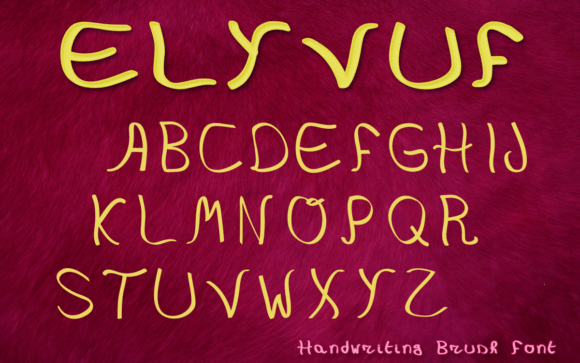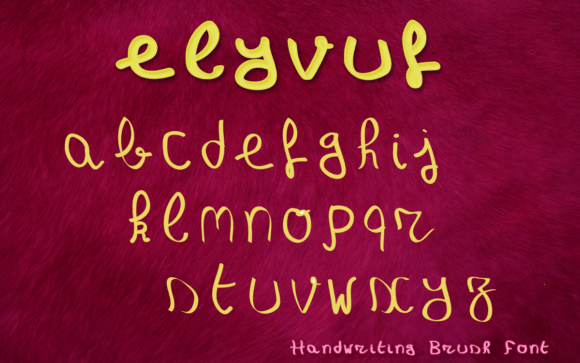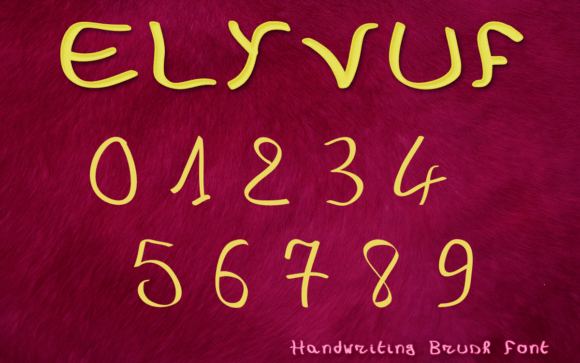
Elyvuf Font: Add a Touch of Personality to Your Design Projects
Are you tired of using the same old fonts in your design projects? Do you want to add a touch of personality and uniqueness to your creations? Look no further than the Elyvuf Font, a stunning handwriting brush font that’s perfect for making your designs stand out. In this article, we’ll take a closer look at the Elyvuf Font, its features, and how you can use it to elevate your design projects.
What is Elyvuf Font?
Elyvuf Font is a unique handwriting brush font that’s designed to bring a touch of personality to your design projects. Created using a high-quality brush pen, this font has an authentic look and feel that’s reminiscent of hand-drawn lettering. Each letter has been carefully crafted to capture the charm and character of traditional handwriting, making it perfect for a wide range of design applications.
Features of Elyvuf Font
So, what makes Elyvuf Font so special? Here are just a few of its key features:
- Handwritten with love: Elyvuf Font is a true handwriting font, created with a brush pen to give it a unique and authentic feel.
- High-quality design: Each letter has been carefully crafted to ensure that it’s clear, legible, and visually appealing.
- Perfect for a range of designs: Whether you’re creating social media graphics, posters, invitations, or anything else, Elyvuf Font is sure to make your designs stand out.
How to Use Elyvuf Font in Your Design Projects
So, how can you use Elyvuf Font in your design projects? Here are a few ideas to get you started:
- Social media graphics: Add a touch of personality to your social media graphics with Elyvuf Font. Use it to create eye-catching headlines, quotes, or promotional messages.
- Posters and flyers: Make your posters and flyers stand out with Elyvuf Font. Its unique and hand-drawn feel is perfect for creating eye-catching designs that grab attention.
- Invitations and cards: Add a personal touch to your invitations and cards with Elyvuf Font. Its elegant and cursive feel is perfect for creating beautiful and memorable designs.
- Branding and packaging: Use Elyvuf Font to create unique and memorable branding and packaging designs. Its hand-drawn feel is perfect for adding a touch of personality to your brand.
Why Choose Elyvuf Font?
So, why should you choose Elyvuf Font for your design projects? Here are just a few reasons:
- Unique and authentic: Elyvuf Font is a true handwriting font that’s been carefully crafted to capture the charm and character of traditional handwriting.
- High-quality design: Each letter has been carefully designed to ensure that it’s clear, legible, and visually appealing.
- Versatile: Elyvuf Font is perfect for a wide range of design applications, from social media graphics to branding and packaging.
| Font Name | Elyvuf Font |
| Author | LNT design |
In conclusion, Elyvuf Font is a unique and authentic handwriting brush font that’s perfect for adding a touch of personality to your design projects. With its high-quality design, versatility, and ease of use, it’s an excellent choice for designers and crafters looking to create eye-catching and memorable designs. So why not give Elyvuf Font a try today and see how it can elevate your design projects?